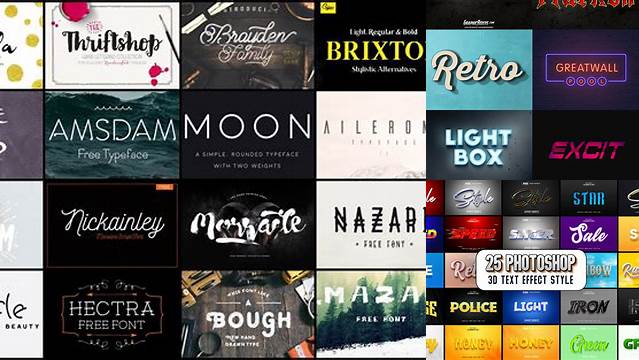
Photoshop Font Design: Free Downloads & Tips
Let's dive into the exciting world of photoshop font design free download! If you're looking to spice up your projects with amazing typography without breaking the bank, you've come to the right place. This article will guide you through finding, downloading, and creatively using free fonts in Photoshop to elevate your designs. Whether you are a seasoned designer or just starting, we will give you the secrets to creating visually stunning work with the power of fonts.
1. Understanding Font Design in Photoshop
Before we jump into the nitty-gritty of free downloads, let's talk about why font design is so important in Photoshop. Fonts are more than just words; they're a key element in visual communication. The right font can convey emotion, set the tone, and enhance the overall message of your design. Think about it: a playful, bubbly font wouldn't work for a serious legal document, right? In Photoshop, you have a ton of control over how your fonts look. You can adjust their size, color, spacing, and even add effects like shadows and glows. Mastering these techniques will allow you to create truly unique and impactful designs. Choosing the right font is like selecting the perfect ingredient for a recipe – it can make or break the final result. So, spend time experimenting and finding fonts that resonate with your project's goals. Remember, great design is all about attention to detail, and fonts are a crucial detail to get right. You can make a big difference in how people understand and feel about your work by understanding font design. It opens up new creative avenues and allows you to express your artistic vision more fully. So, don't underestimate the power of fonts – they are your allies in the world of graphic design!
2. Where to Find Free Photoshop Fonts
Okay, guys, let's get to the good stuff: where to find those sweet, sweet free fonts for Photoshop. The internet is overflowing with font websites, but not all are created equal. You want to stick to reputable sites that offer high-quality fonts and, most importantly, respect licensing agreements. One of the best places to start is Google Fonts. They have a huge library of open-source fonts that are free for both personal and commercial use. Another great resource is DaFont, which has a massive collection of fonts submitted by designers from all over the world. Just be sure to check the license for each font before using it, as some may only be free for personal use. Creative Market also offers free goods every week, which sometimes includes fonts. Keep an eye on their site for these awesome freebies. MyFonts is another reliable option, although their free section is smaller, the quality is often very high. Lastly, FontSpace is a community-driven site with a wide variety of free fonts. Remember to always double-check the license to avoid any legal issues. With a little bit of digging, you'll find a treasure trove of amazing fonts to elevate your Photoshop designs. Happy hunting! Always prioritize sites that clearly state the font's license. This ensures you're using the font legally and ethically, whether for personal projects or commercial work.
5. Pairing Fonts Effectively in Photoshop
Alright, you've got a bunch of cool free fonts installed, but how do you make them work together in harmony? Font pairing is an art, but it's also a skill you can learn. The key is to create contrast and visual interest while maintaining readability. A good starting point is to pair a serif font (like Times New Roman or Garamond) with a sans-serif font (like Arial or Helvetica). Serif fonts have those little decorative strokes at the ends of the letters, while sans-serif fonts are cleaner and more modern. For example, you could use a serif font for headings and a sans-serif font for body text. Another approach is to pair fonts from the same family but with different weights or styles. For instance, you could use a bold version of a font for headings and a regular version for body text. You can also use online tools like FontPair or Typewolf to get inspiration for font pairings. These sites offer curated combinations of fonts that work well together. Experimentation is key, but here are a few general guidelines: avoid pairing fonts that are too similar, as this can look unintentional; consider the mood and tone of your design when choosing fonts; and always prioritize readability. With practice, you'll develop an eye for font pairing and be able to create visually appealing and effective designs. Effective font pairing is essential for creating visually appealing designs in Photoshop. It can improve readability, establish a clear hierarchy, and enhance the overall aesthetic of your project.
6. Creating Custom Font Designs in Photoshop
Feeling adventurous? Why not try creating your own custom font designs in Photoshop? While you can't create a fully functional font file directly in Photoshop, you can certainly design unique letterforms and typographic elements that you can use in your projects. Start by creating a new Photoshop document with a high resolution. Then, use the Type tool to create a letter or word that you want to customize. Next, convert the text layer into a shape layer by right-clicking on the layer and selecting "Convert to Shape." Now you can use the Direct Selection tool (the white arrow) to manipulate the individual points and curves of the letterform. You can also use the Pen tool to add new shapes and elements to your design. Experiment with different styles, weights, and effects to create a truly unique look. Once you're happy with your design, you can save it as a PNG or SVG file and use it in other projects. While this method doesn't create a usable font file, it allows you to create custom typographic elements that can add a personal touch to your designs. You can also use these custom letterforms as inspiration for creating your own fonts using dedicated font creation software like FontLab or Glyphs. Custom font design in Photoshop lets you create unique typographic elements. While it doesn't produce a usable font file, it adds a personal touch to your projects.
7. Mastering Text Effects with Photoshop Fonts
One of the coolest things about using fonts in Photoshop is the ability to add amazing text effects. With Photoshop's layer styles and filters, you can transform ordinary text into eye-catching masterpieces. To add a layer style, simply double-click on the text layer in the Layers panel. This will open the Layer Style dialog box, where you can add effects like drop shadows, glows, bevels, and textures. Experiment with different settings to create the perfect look. You can also use Photoshop's filters to add more complex effects. For example, you can use the Gaussian Blur filter to create a soft, dreamy effect, or the Distort filters to create wavy or distorted text. Another great technique is to use clipping masks to fill your text with images or patterns. Simply place an image layer above your text layer, right-click on the image layer, and select "Create Clipping Mask." The image will then be clipped to the shape of the text. With a little creativity, you can create text effects that are truly unique and visually stunning. Just remember to use effects sparingly and in a way that enhances the overall design, not distracts from it. Mastering text effects with Photoshop fonts allows you to transform ordinary text into eye-catching masterpieces. Experiment with layer styles, filters, and clipping masks to create unique and visually stunning designs.
8. The Importance of Readability in Font Design
While it's tempting to choose the most stylish and unique font you can find, it's important to remember that readability should always be a top priority. After all, what's the point of a beautiful design if people can't actually read the text? Readability refers to how easy it is to read and understand text. Factors that affect readability include font size, font weight, letter spacing, line height, and contrast. When choosing a font, consider the context in which it will be used. For example, a font that looks great in a large headline might not be suitable for body text. In general, simpler, cleaner fonts are more readable than highly decorative or stylized fonts. Also, pay attention to the spacing between letters and lines. Tight letter spacing can make text look cramped and difficult to read, while excessive line height can make it harder to follow the flow of the text. Finally, make sure there is enough contrast between the text and the background. Dark text on a light background is generally easier to read than light text on a dark background. By prioritizing readability, you can ensure that your designs are not only visually appealing but also effective at communicating your message. The importance of readability in font design cannot be overstated. It ensures that your message is easily understood and enhances the overall effectiveness of your design.
9. Font Licensing Explained for Beginners
Font licensing can seem complicated, but it's important to understand the basics to avoid any legal issues. A font license is a legal agreement that grants you the right to use a font in certain ways. The license specifies things like whether you can use the font for personal or commercial projects, whether you can embed the font in a document, and whether you can modify the font. There are several types of font licenses. Some fonts are free for both personal and commercial use, while others are free for personal use only. Some licenses allow you to embed the font in a PDF or website, while others do not. Some licenses allow you to modify the font, while others prohibit it. It's important to read the license agreement carefully before using a font to make sure you're complying with the terms. If you're unsure about the license, it's always best to err on the side of caution and contact the font designer or distributor for clarification. Using a font without the proper license can lead to legal trouble, so it's always worth taking the time to understand the terms of the agreement. Font licensing explained helps beginners understand the legal agreements associated with font usage. Knowing the basics of font licensing ensures you use fonts legally and ethically.
10. Best Free Fonts for Headlines
Headlines are your chance to grab attention and make a statement, so you need fonts that are bold, impactful, and easy to read. Here are some of the best free fonts for headlines: Montserrat: A clean and modern sans-serif font that's perfect for a wide range of projects. Bebas Neue: A tall and narrow sans-serif font that's great for creating a sense of height and drama. Oswald: A slightly condensed sans-serif font that's ideal for headlines and subheadings. Raleway: An elegant sans-serif font with a slightly geometric feel. Playfair Display: A high-contrast serif font that's perfect for adding a touch of sophistication. These fonts are all free for commercial use and are available from Google Fonts. When choosing a font for your headlines, consider the overall tone and style of your design. A modern, minimalist design might call for a clean sans-serif font, while a more traditional design might benefit from a classic serif font. Also, pay attention to the font size and spacing. Headlines should be large enough to be easily readable, but not so large that they overwhelm the design. The best free fonts for headlines are bold, impactful, and easy to read. Choosing the right headline font can significantly enhance the visual appeal and effectiveness of your design.
11. Top Free Fonts for Body Text
Body text needs to be easy on the eyes and comfortable to read for extended periods. Here are some top free fonts for body text: Open Sans: A highly readable sans-serif font that's designed for the web. Lato: A friendly and approachable sans-serif font that's perfect for a wide range of applications. Roboto: A modern and geometric sans-serif font that's widely used on Android devices. Merriweather: A classic serif font that's designed for readability on screens. Noto Serif: A versatile serif font that supports a wide range of languages. These fonts are all free for commercial use and are available from Google Fonts. When choosing a font for your body text, prioritize readability above all else. Avoid fonts that are too decorative or stylized, as these can be difficult to read in large blocks of text. Also, pay attention to the font size and line height. Body text should be large enough to be easily readable, but not so large that it looks clunky. The line height should be adjusted to allow for comfortable reading. The top free fonts for body text prioritize readability and comfort. Selecting the right font for body text ensures that your message is easily digestible for the reader.
12. How to Customize Free Fonts in Photoshop
Even though you're using free fonts, you can still customize them in Photoshop to create a unique look. One of the easiest ways to customize a font is to adjust its size, spacing, and color. You can also add layer styles like drop shadows, glows, and bevels to give the font a more three-dimensional look. Another way to customize a font is to convert it to a shape layer. This allows you to manipulate the individual points and curves of the letters, giving you complete control over their appearance. You can also use the Pen tool to add new shapes and elements to the font. Experiment with different techniques to create a font that's truly your own. Just remember to be mindful of the font's license agreement. Some licenses may prohibit you from modifying the font, while others may allow it as long as you credit the original designer. Customizing free fonts in Photoshop allows you to create a unique look. By adjusting size, spacing, color, and adding layer styles, you can personalize fonts to fit your design needs.
13. Understanding Kerning, Tracking, and Leading
Kerning, tracking, and leading are three essential typographic terms that you should understand to improve the appearance of your text. Kerning refers to the spacing between individual letters. Adjusting the kerning can improve the readability and visual appeal of your text. Tracking refers to the uniform spacing between all letters in a word or line of text. Increasing the tracking can make text look more airy and spacious, while decreasing the tracking can make it look more dense and compact. Leading (pronounced "ledding") refers to the vertical spacing between lines of text. Increasing the leading can improve readability, especially for long blocks of text. In Photoshop, you can adjust the kerning, tracking, and leading in the Character panel. Experiment with different settings to find what looks best for your text. Understanding kerning, tracking, and leading is crucial for improving the appearance of your text. These typographic adjustments enhance readability and visual appeal.
14. Using Free Fonts for Logos and Branding
Choosing the right font for your logo and branding is crucial for creating a strong and memorable brand identity. Your font should reflect the personality and values of your brand. For example, a modern and tech-savvy brand might choose a clean sans-serif font, while a more traditional and established brand might opt for a classic serif font. When choosing a font for your logo, consider its readability, versatility, and scalability. The font should be easy to read in both small and large sizes, and it should work well in a variety of applications, from business cards to websites. Also, make sure the font is scalable, meaning it can be enlarged without losing its quality. Using free fonts for logos and branding can be a great way to save money, but it's important to choose your fonts carefully and make sure you have the proper license for commercial use. Using free fonts for logos and branding can be cost-effective, but requires careful selection. The font should reflect your brand's personality, be readable, versatile, and scalable.
15. The Best Font Combinations for Photoshop
Font combinations can make or break a design. Here are some of the best font combinations for Photoshop: Montserrat & Raleway: A modern and clean sans-serif combination that's perfect for a wide range of projects. Open Sans & Lato: A friendly and approachable sans-serif combination that's ideal for websites and apps. Roboto & Roboto Slab: A versatile sans-serif and serif combination that works well for both headlines and body text. Playfair Display & Montserrat: An elegant serif and sans-serif combination that's perfect for adding a touch of sophistication. Merriweather & Open Sans: A classic serif and sans-serif combination that's designed for readability. These font combinations are all free for commercial use and are available from Google Fonts. When choosing font combinations, consider the overall tone and style of your design. A modern design might call for a clean sans-serif combination, while a more traditional design might benefit from a serif and sans-serif combination. The best font combinations for Photoshop enhance the overall design. Pairing fonts effectively can improve readability, establish hierarchy, and create a visually appealing aesthetic.
16. Free Script Fonts for Photoshop
Script fonts can add a touch of elegance and personality to your designs. Here are some popular free script fonts for Photoshop: Great Vibes: A beautiful calligraphy-style font that's perfect for invitations and wedding designs. Pacifico: A fun and playful script font that's great for logos and branding. Lobster Two: A bold and modern script font that's ideal for headlines and posters. Brush Script MT: A classic brush script font that's perfect for adding a handmade touch. Dancing Script: A casual and friendly script font that's great for personal projects. These fonts are all free for personal use, but some may require a license for commercial use. Be sure to check the font's license agreement before using it in a commercial project. When using script fonts, it's important to use them sparingly, as they can be difficult to read in large blocks of text. Use them for headlines, logos, or other short pieces of text to add a touch of personality to your designs. Free script fonts for Photoshop add elegance and personality. Use them sparingly for headlines, logos, and short texts to enhance visual appeal without sacrificing readability.
17. How to Create a Font Mood Board
A font mood board is a visual tool that helps you explore different font options and find the perfect font for your project. To create a font mood board, start by gathering inspiration from magazines, websites, and other sources. Collect images, colors, and textures that resonate with the overall tone and style of your project. Then, choose a selection of fonts that you think might work well. Try to include a variety of different styles, such as serif, sans-serif, script, and display fonts. Next, create a digital or physical board and arrange your inspiration images and font samples in a visually appealing way. Experiment with different layouts and arrangements until you find something that you like. Finally, review your mood board and narrow down your font choices. Select the fonts that best capture the essence of your project and that work well together. A font mood board is a visual tool that helps explore font options. It involves gathering inspiration, selecting a variety of fonts, and arranging them visually to find the perfect font for your project.
18. Designing with Retro Fonts in Photoshop
Retro fonts can evoke nostalgia and add a vintage feel to your designs. Here are some tips for designing with retro fonts in Photoshop: Choose fonts that are authentic to the era you're trying to recreate. Research popular fonts from the 1950s, 1960s, 1970s, or 1980s and use them in your designs. Use color palettes that are typical of the era. Retro designs often feature bold, saturated colors or muted, pastel shades. Add textures and patterns that are reminiscent of vintage designs. Use grunge textures, halftone patterns, or distressed effects to give your designs a worn and aged look. Use retro fonts sparingly and pair them with modern fonts to create a balanced and visually appealing design. Designing with retro fonts in Photoshop evokes nostalgia. Use authentic fonts, era-specific color palettes, vintage textures, and modern font pairings to create balanced and appealing designs.
19. Using Free Fonts for Web Design
When choosing fonts for web design, it's important to consider readability, performance, and compatibility. Here are some tips for using free fonts for web design: Choose fonts that are easy to read on screens. Sans-serif fonts are generally more readable than serif fonts on screens. Use web-safe fonts that are widely available on different operating systems and browsers. This will ensure that your website looks consistent across different devices. Optimize your fonts for performance by using font formats like WOFF and WOFF2, which are designed for web use. Use Google Fonts, which are free, open-source, and optimized for web performance. Test your fonts on different devices and browsers to ensure that they look good and perform well. Using free fonts for web design requires considering readability, performance, and compatibility. Opt for web-safe fonts, optimize font formats, and use Google Fonts for best results.
20. How to Animate Text with Photoshop Fonts
Animate text with Photoshop fonts to create eye-catching motion graphics. Here's how: Create your text layer in Photoshop. Convert the text layer into a Smart Object. Open the Timeline panel (Window > Timeline). Create a Video Timeline. Add keyframes to the text layer's properties (position, scale, rotation, opacity) to create animation. Use easing options to smooth out the animation. Export your animation as a GIF or video file. Animating text with Photoshop fonts creates eye-catching motion graphics. Convert text to a Smart Object, use the Timeline panel, add keyframes, and apply easing options for smooth animation.
21. The Ethics of Using Free Fonts
Using free fonts comes with ethical considerations. Here's what to keep in mind: Always check the font's license agreement before using it. Respect the font designer's terms of use. Give credit to the font designer when required by the license. Avoid using free fonts for projects that violate copyright laws or promote unethical behavior. Support font designers by purchasing their fonts when possible. The ethics of using free fonts involves respecting licenses, crediting designers, and avoiding unethical use. Supporting font designers financially is also encouraged.
22. Common Mistakes to Avoid When Using Fonts
Avoid these common font usage mistakes: Using too many fonts in one design. Poor font pairing. Ignoring readability. Using fonts that are not appropriate for the project. Violating font licenses. Neglecting kerning, tracking, and leading. Common mistakes to avoid when using fonts include using too many fonts, poor pairing, ignoring readability, inappropriate font choice, violating licenses, and neglecting typographic adjustments.
23. Free Font Resources for Designers
Explore these valuable free font resources for designers: Google Fonts. DaFont. FontSpace. Creative Market (Free Goods). MyFonts (Free Fonts). These resources offer a wide variety of free fonts for personal and commercial use. Free font resources for designers like Google Fonts, DaFont, FontSpace, Creative Market, and MyFonts provide a variety of options for personal and commercial projects.
24. How to Choose the Right Font Weight
Choose the right font weight to enhance readability and visual hierarchy. Consider these factors: The size of the text. The contrast between the text and the background. The overall tone and style of the design. Use heavier weights for headlines and lighter weights for body text. Experiment with different weights to find the perfect balance. Choosing the right font weight enhances readability and visual hierarchy. Consider text size, contrast, and the design's overall tone to select appropriate weights for headlines and body text.
25. Using Free Fonts in Mobile App Design
Use free fonts in mobile app design while prioritizing readability and performance: Choose fonts that are optimized for mobile screens. Use web-safe fonts or Google Fonts. Optimize font sizes for different screen sizes. Test your fonts on different devices and operating systems. Ensure your chosen fonts enhance user experience. Using free fonts in mobile app design requires optimizing for mobile screens, ensuring readability, using web-safe fonts or Google Fonts, and testing on various devices.
26. The Future of Font Design
The future of font design will be shaped by trends like variable fonts, AI-powered font creation, and increased personalization. Variable fonts allow for greater flexibility and customization. AI can assist in generating new and unique font designs. Personalization will enable fonts to adapt to individual user preferences. Expect more dynamic and responsive typography in the future. The future of font design will be shaped by variable fonts, AI-powered creation, and personalization. These trends will lead to more dynamic and responsive typography.
27. Free Fonts for Print Design
When selecting free fonts for print design, ensure they are high-resolution and suitable for professional printing: Choose fonts that are designed for print. Use fonts with clear and crisp outlines. Avoid using fonts that are too thin or decorative. Test your fonts by printing a sample page before committing to the final design. Ensure the font is scalable without losing quality. Free fonts for print design must be high-resolution and suitable for professional printing. Choose fonts with clear outlines and avoid those that are too thin or decorative.
28. Understanding OpenType Features
Understanding OpenType features can enhance your typographic design. OpenType features include: Ligatures (connecting letter pairs). Swashes (decorative letterforms). Small caps (smaller versions of uppercase letters). Contextual alternates (automatic letter substitutions). Use these features to add polish and sophistication to your designs. Understanding OpenType features such as ligatures, swashes, small caps, and contextual alternates enhances typographic design by adding polish and sophistication.
29. Legal Pitfalls to Avoid with Free Fonts
Avoid these legal pitfalls when using free fonts: Always read and understand the font license agreement. Ensure the font is free for commercial use if you plan to use it in a commercial project. Keep a record of where you downloaded the font and the terms of the license. Respect any restrictions on modifying or redistributing the font. If in doubt, contact the font designer for clarification. Legal pitfalls to avoid with free fonts include neglecting license agreements, using fonts commercially without permission, and failing to document font sources and license terms.
30. Advanced Typography Techniques in Photoshop
Enhance your designs with advanced typography techniques in Photoshop: Create custom text paths. Use clipping masks to fill text with images or patterns. Apply advanced layer styles to create unique text effects. Experiment with different blending modes to blend text with the background. Use adjustment layers to fine-tune the color and contrast of your text. Advanced typography techniques in Photoshop include creating custom text paths, using clipping masks, applying advanced layer styles, experimenting with blending modes, and using adjustment layers.